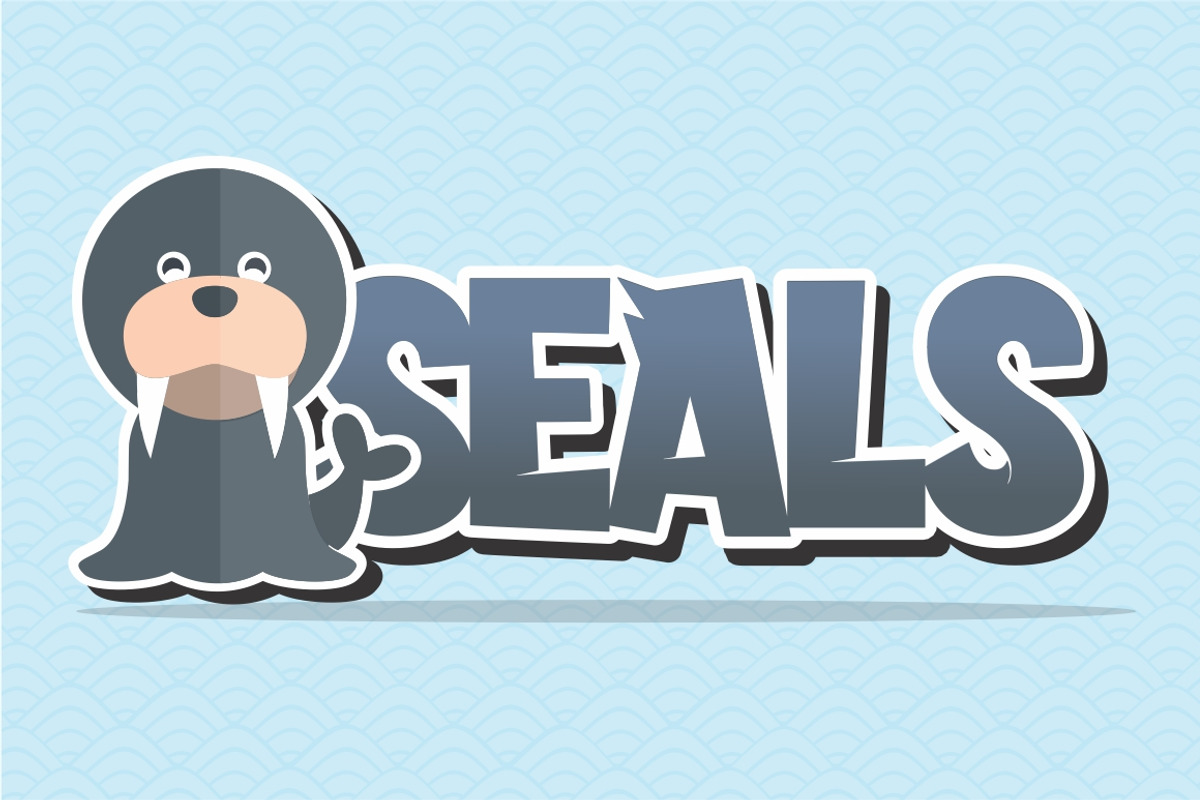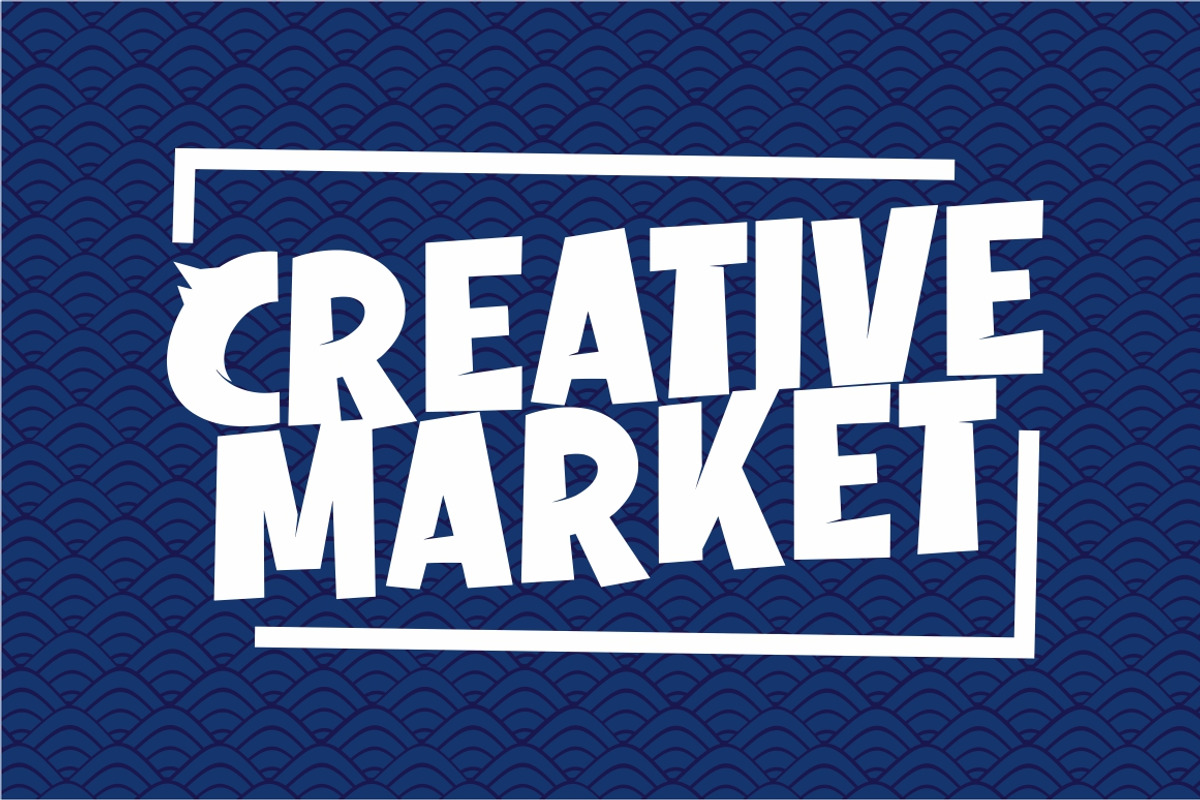
Whoody
Whoody is the font that designers are looking for to combine chemistry between funny images and perfection.
You get used to logos, character fonts, t-shirts, book covers, titles, quots and much more.